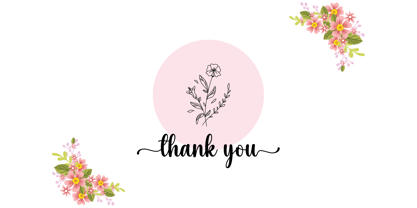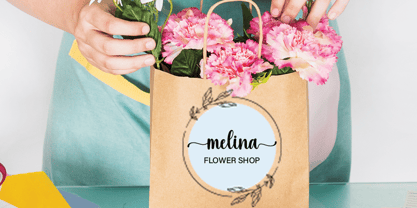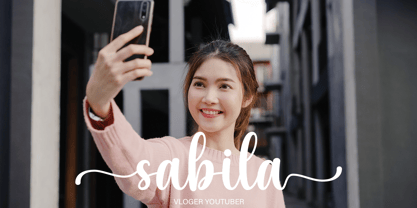
Candy Hearts
by Dania Graphix Studio
The Candy Hearts Font Family was designed by and published by Dania Graphix Studio. Candy Hearts contains 1 styles. More about this family
Candy Hearts a stylish and incredibly elegant handwritten font. It looks stunning on wedding invitations, thank you cards, quotes, greeting cards, logos, business cards, and every other design which needs a handwritten touch.